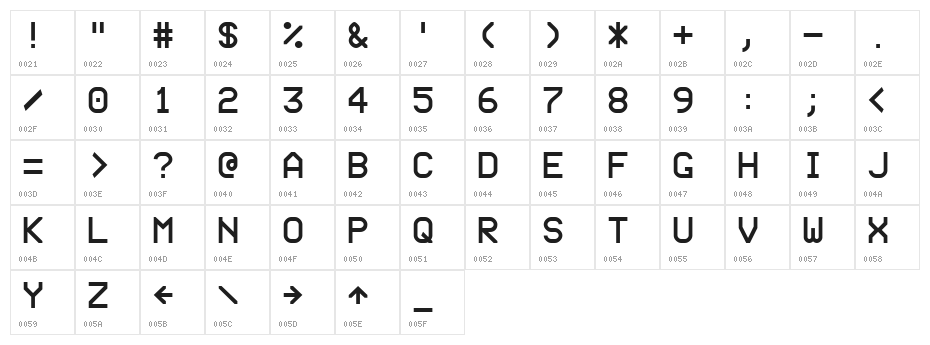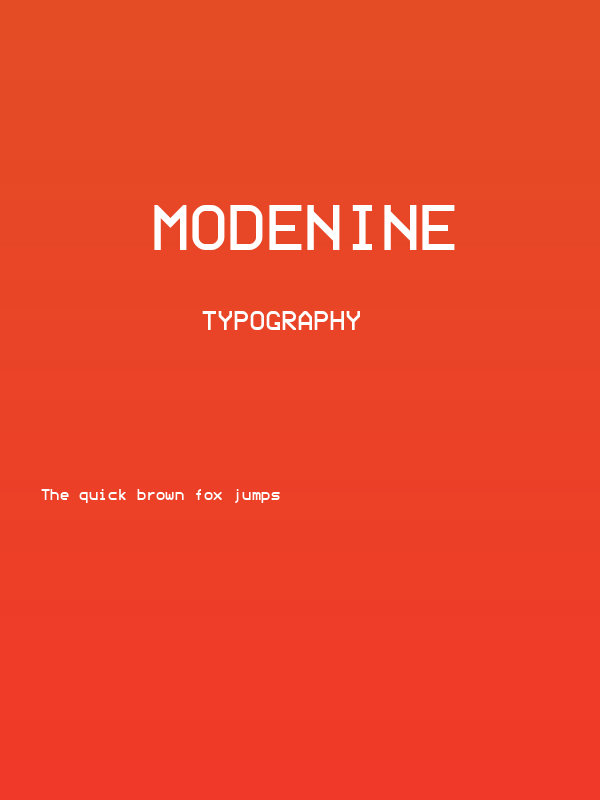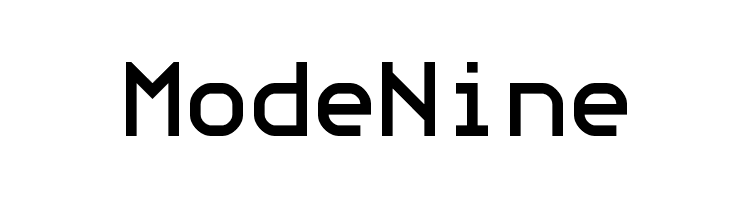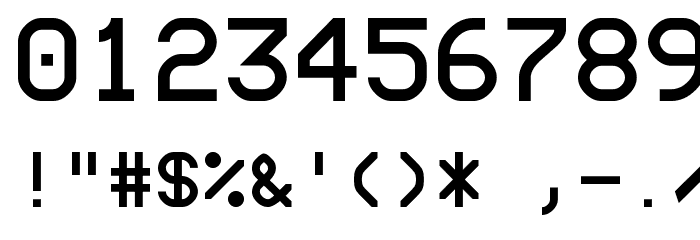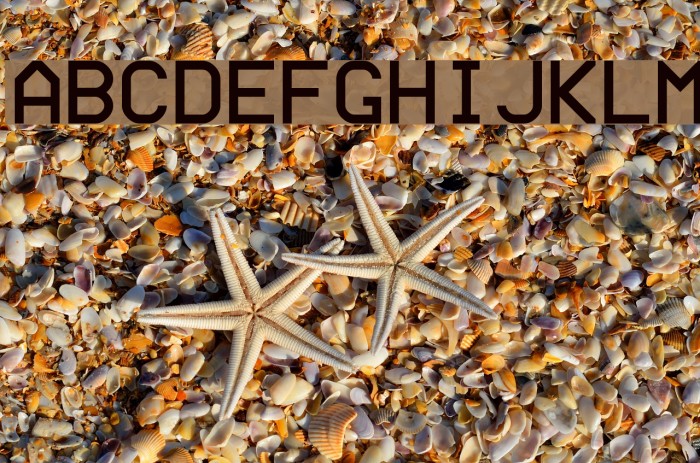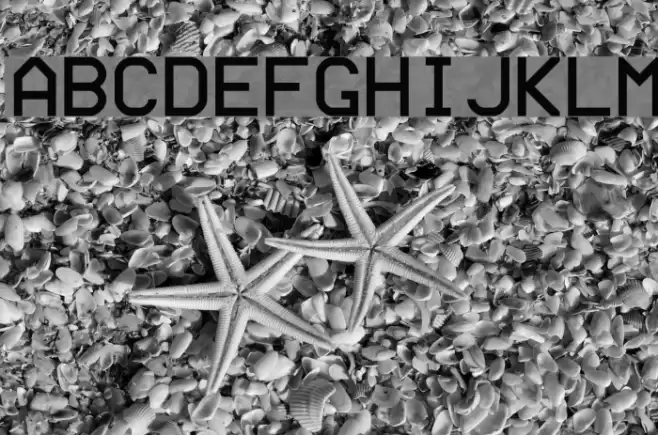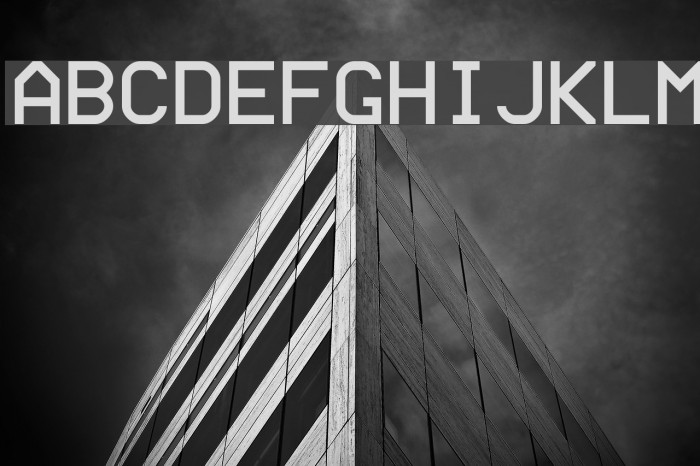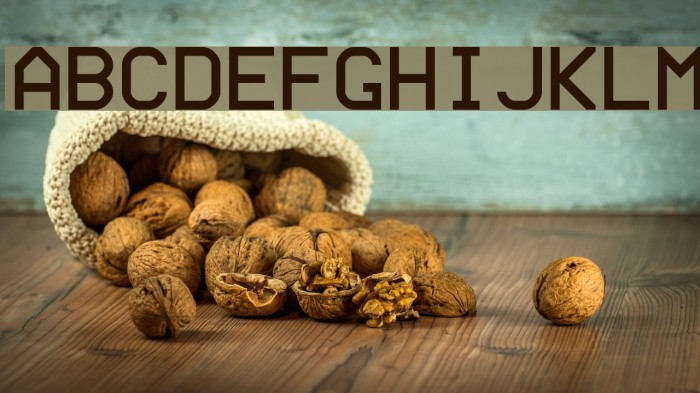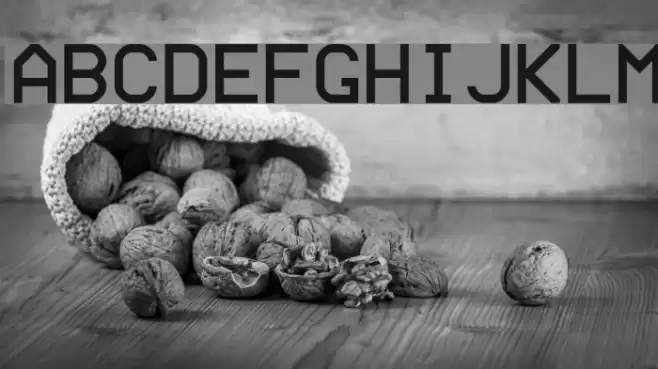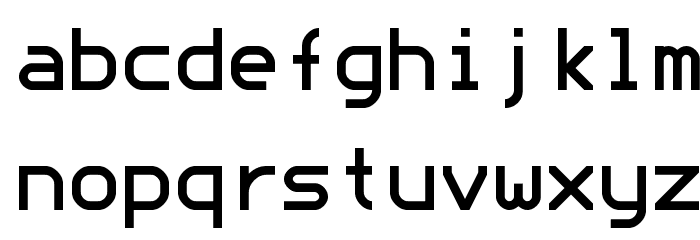
ModeNine Font
ModeNine Description
This font features a geometric and modern design with clean lines and a structured appearance. The uppercase letters are uniform in height, creating a cohesive look, while the lowercase letters maintain a similar geometric style with a slightly softer edge. The numerals are bold and clear, ensuring readability. Special characters are well-integrated, maintaining the overall aesthetic. The font's design is both functional and stylish, making it versatile for various applications.